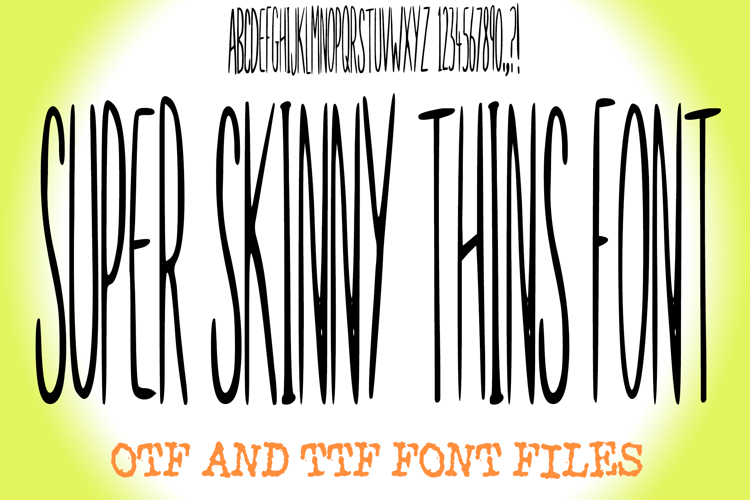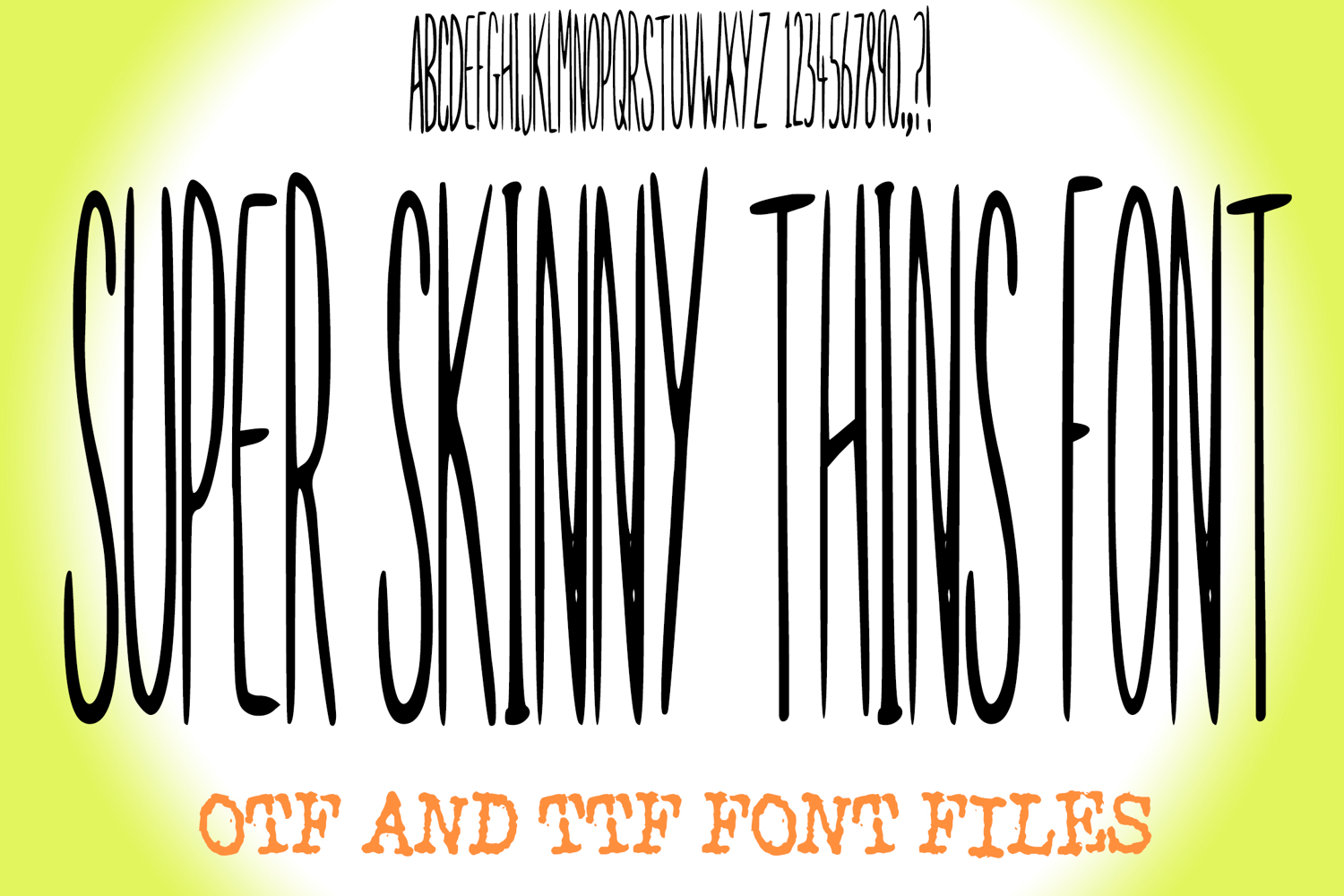
Super Skinny Thins Font Tall Quirky Handwritten Type ABC OTF
Super Skinny Thins Font is a tall, quirky, and ultra-slim display typeface perfect for adding a playful yet stylish touch to your designs. With its elongated and hand-drawn feel, this skinny font works beautifully for posters, invitations, logos, crafts, digital designs, t-shirt printing, scrapbooking, and DIY projects. Its fun and unique personality makes it a standout choice for Halloween graphics, modern quotes, greeting cards, stickers, and Cricut or Silhouette cutting projects.
Bring your creative projects to life with this handmade skinny lettering style that blends quirky charm with bold modern vibes.on.